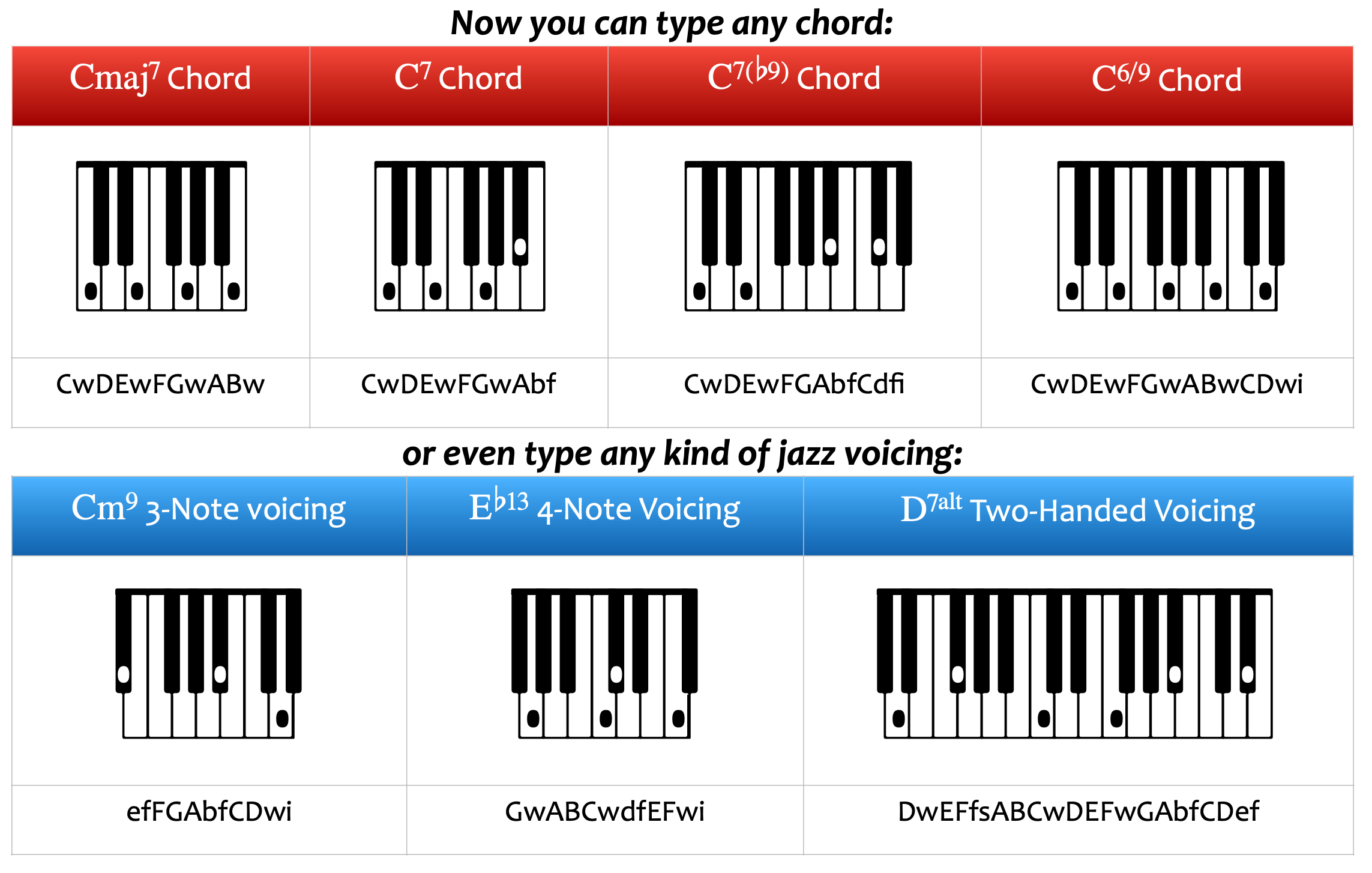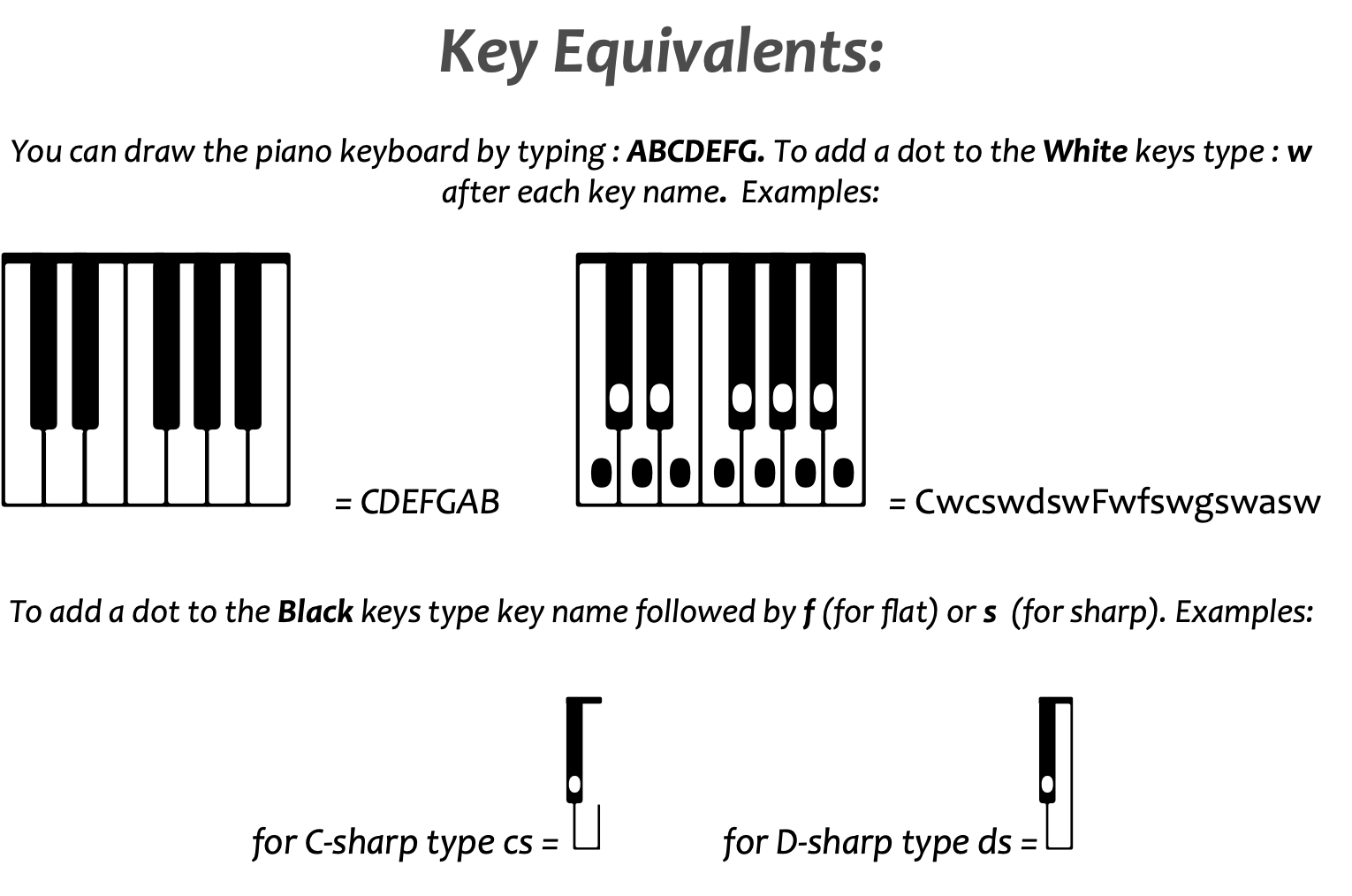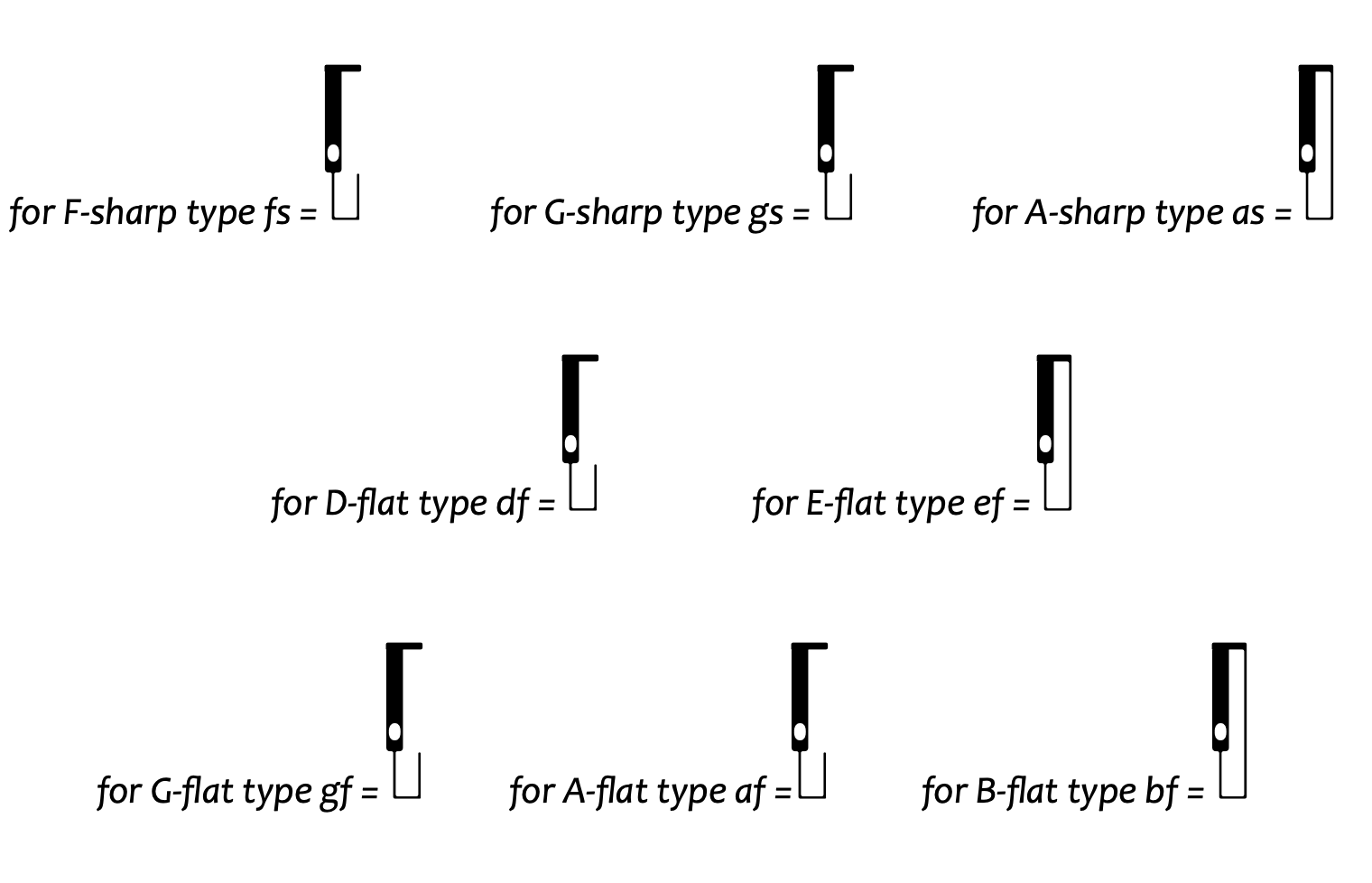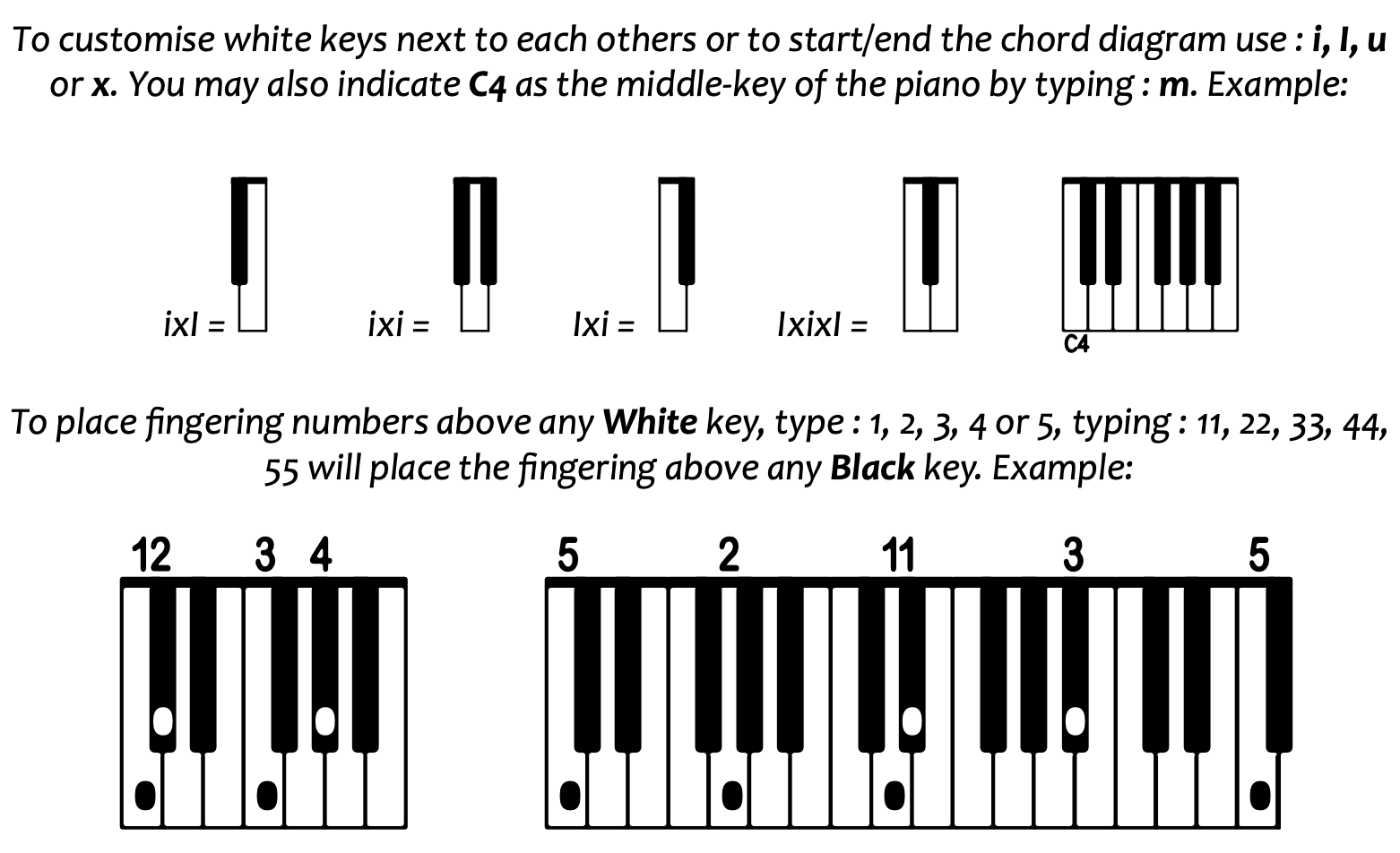
NorKeys: The Essential Font for Piano and Keyboard Education
NorKeys is a versatile and innovative font designed to help educators and students create custom chord diagrams for piano and keyboard instruments. With this powerful tool, users can effortlessly illustrate keyboard layouts, highlight specific pitches and keys, and bring musical concepts to life with stunning visual clarity.
Whether you’re crafting engaging elementary piano and keyboard harmony lessons or enhancing lead sheets with detailed chord diagrams, NorKeys makes it simple and intuitive. Students can easily visualize and understand the structure of any chord, voicing, or scale, transforming complex musical concepts into clear and accessible learning experiences.
From beginner lessons to advanced harmonic studies, NorKeys empowers teachers to create professional, high-quality instructional materials that inspire and educate. Elevate your music teaching resources and give your students the visual tools they need to succeed.
The Norkeys font is a pure marvel.
It draws a piano keyboard and indicate the keys, we can put the fingerings which are perfectly readable.
A great success!